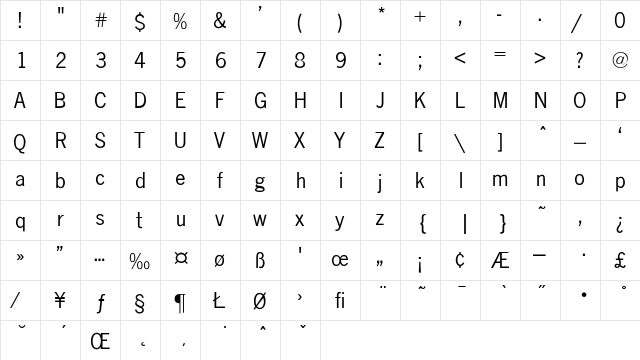
Ice'n-Gothic-Normal Regular
Design Context for Ice'n-Gothic-Normal Typeface
Ice'n-Gothic-Normal has the quiet confidence of well-executed sans-serif typography: versatile, unobtrusive, and dependable at any size.
Font Pairing: Works well alongside a characterful serif or display font that can carry the expressive load while Ice'n-Gothic-Normal handles the functional copy.
Pro Tip: Pair Ice'n-Gothic-Normal with a display or serif font for headlines — its neutral character makes it an excellent supporting player in complex typographic systems.